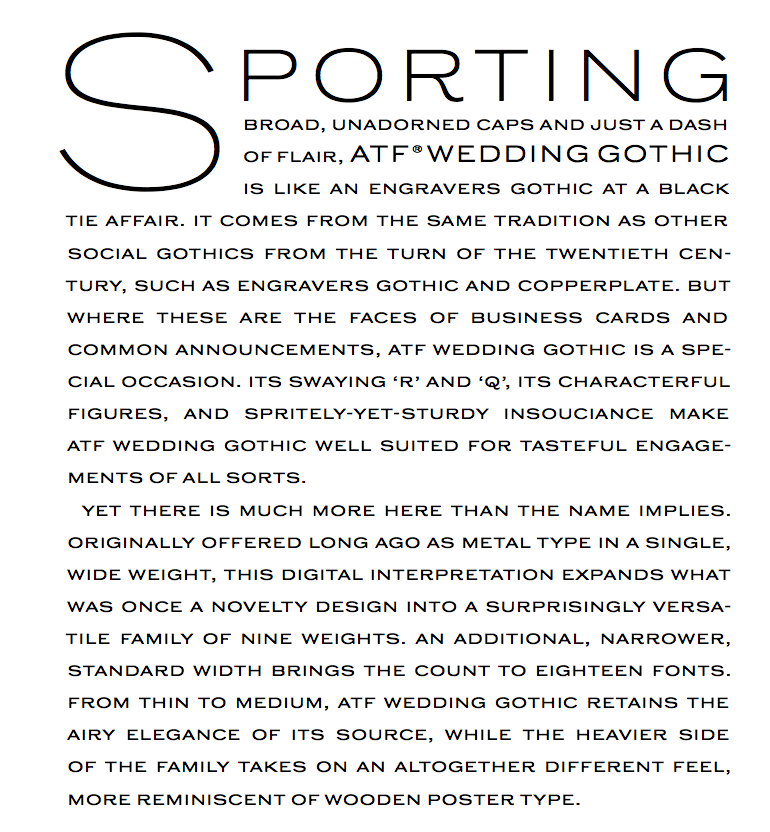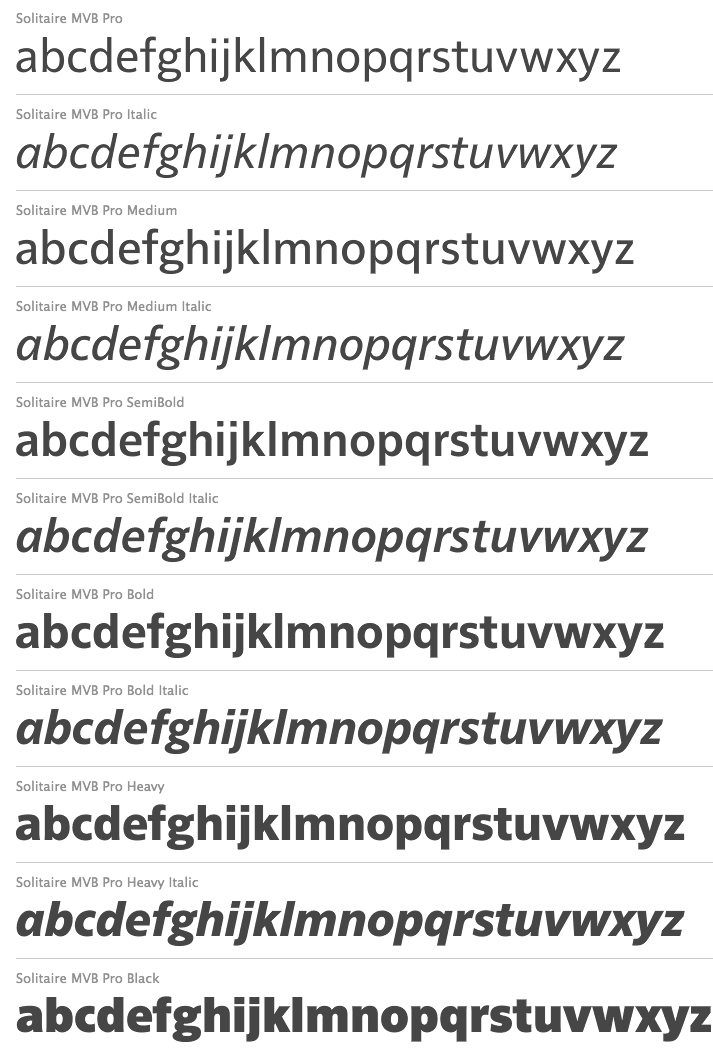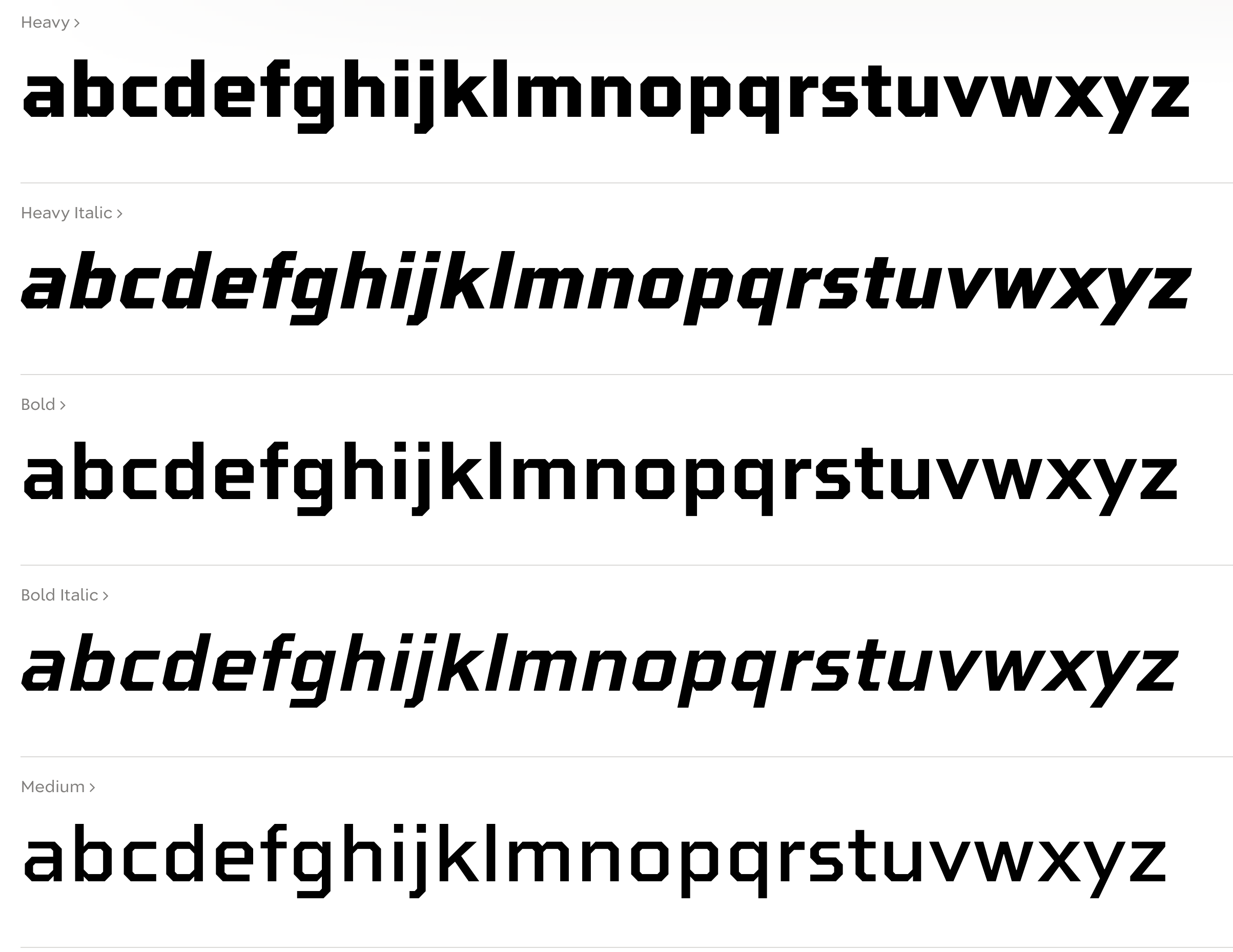
MvB Design [Mark van Bronkhorst]
MvB Design (later called MVB Fonts) is Mark van Bronkhorst's company in Albany, CA, est. 1991 in San Francisco. It was also known as Markanna Studios Inc. Its fonts were first distributed by FontHaus, then by MyFonts, and most recently by Type Network.
In the list below, unless explicitly mentioned, Mark van Bronkhorst is the designer: GryphiusMVB (2003), MVB Solano Gothic (2007-2009, six Bank Gothic lookalikes done for the city of Albany, CA), MVB Celestia Antiqua One and Two (1993-1996, a rustic font family in the Caslon Antique genre; it contains zodiac signs), MVB Greymantle (1993, Kanna Aoki), MvB Magnesium (1992-2003, Adobe: a hefty, contrasted, all-caps sans serif with angled terminals that pays homage to American sign lettering), Magnolia MvB (1997), Airedale (1992), BovinePoster or MVB Bovine (1993), DickAndJane (1994), MildewRoman (1994), QuercusRegular (1993), PFAnimals (1993), PFCommerceCommunication (1992), PFFoodDrink (1992), PFHolidaysCelebrations (1992), PFHouseholdItems (1993), PFTransportTravel (1992), QuercusHard (1993), MVB Emmascript (1996, Kanna Aoki), MVB Café Mimi (1996-2003, Kanna Aoki), MVB Pedestria (2002, a sans family by Akemi Aoki), MVB Pedestria Pict (2002, dingbats by Akemi Aoki), MVB Verdigris (2003-2011, a garalde close to Sabon), MVB Fantabular and MVB Fantabular Sans (2002, Akemi Aoki, monospaced, typewriter-style), MVB Grenadine One and Two (2003, sans families by Akemi Aoki), MVB Peccadillo (2002, by Holly Goldsmith and Alan Greene), MVB BossaNova (Holly Goldsmith, 1997), BatmanForever1 (1994, Maseeh Rafani/Warner Bros and Mark van Bronkhorst), Breakdown (1996), HornyDave (1995, based on illustrations of Georgia Panagiotopoulos), HypnoclipsLogoFont (1997), Ovidius (1993), Subterfuge (1995), ZedGothicMvB (1996), HotsyTotsy, MVB Sirenne Six, MVB Sirenne Text, MVB Sirenne Display (2002, display serif family by by MvB and Alan Greene), Veriris Pro Text (2003-2011).
MVB Sacre Bleu (2007) is an award-winning handwriting typeface about which Joshua Lurie-Terrell writes: Sacre Bleu is the most flexible and accessible informal script of 2007, and rivals some of the best typefaces in this vein from the past decade. He compares it with Christian Robertson's Dear Sarah, Dave Farey's Lettres Eclatees, Letterror's Salmiak and Nick Cooke's Olicana, another very successful face.
In 2008, Mark set up Sweet Fonts, where he and Linnea Lundquist designed Sweet Upright Script (2008), and Mark published the quintuple line blackboard board family Sweet Titling No. 22 (2010), Sweet Square (2011---in the style of Bank Gothic), Sweet Sans Pro (2011, a sans family from Hairline, Sweet Gothic to Heavy. He says: The family is based on antique engraver's lettering templates called masterplates. Professional stationers use a pantograph to manually transfer letters from these masterplates to a piece of copper or steel that is then etched to serve as a plate or die. This demanding technique is rare today given that most engravers now use a photographic process to make plates, where just about any font will do. But the lettering styles engravers popularized during the first half of the twentieth century---especially the engraver's sans---are still quite familiar and appealing. It is in the style of Burin Sans and Sackers Gothic. And Embarcadero MVB (2010, a near-grotesque superfamily).
In 2012, van Bronkhorst released MvB Mascot (a signage script).
In 2013, MVB published the utilitarian sans family MVB Solitaire.
For Whole Foods Market, he created the corporate typefaces Grace's Hand and Molly Text in 2014.
In 2015, Mark van Bronkhorst set up TypoBrand LLC in Berkeley, CA. As part of TypoBrand, he published several typefaces that are modern digital reinterpretations of ATF typefaces. The collection is published by TypoBrand LLC under the names ATF Type or American Type Founders Collection. At ATF Type foundry, they co-designed, sometimes with others, classics such as ATF Alternate Gothic (2015), ATF Brush (2015), ATF Egyptian Antique (an expansion of Schraubstadter's Rockwell Antique by Mark van Bronkhorst, Igino Marini, and Ben Kiel), ATF Garamond (2015), ATF Headline Gothic (2015), ATF Livermore Script (by Mark van Bronkhorst, Igino Marini, and Ben Kiel), ATF Poster Gothic (2015), ATF Railroad Gothic (2016), and ATF Wedding Gothic (2015).
In 2017, he designed the plastic template font family MVB Diazo.